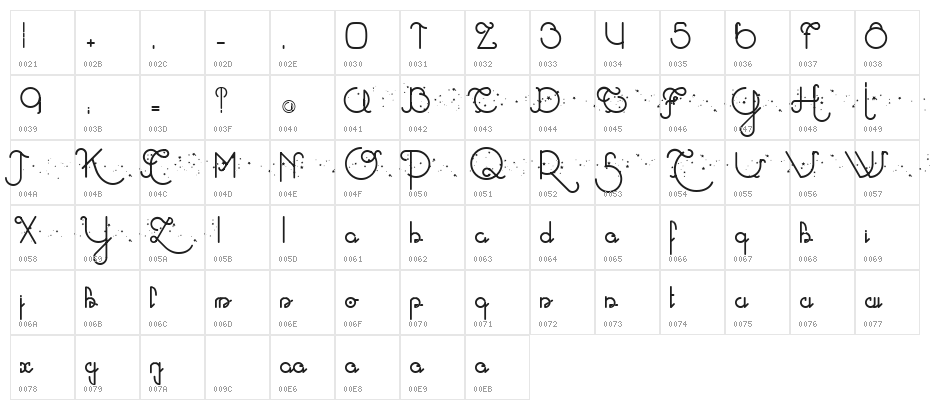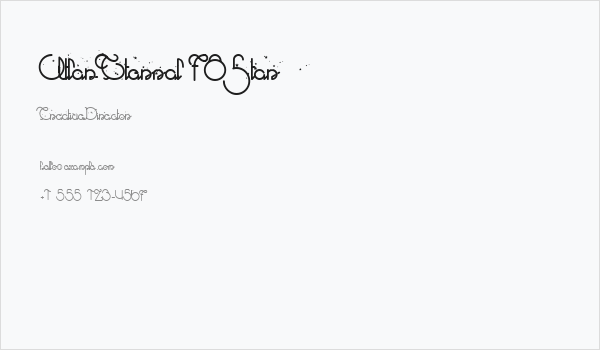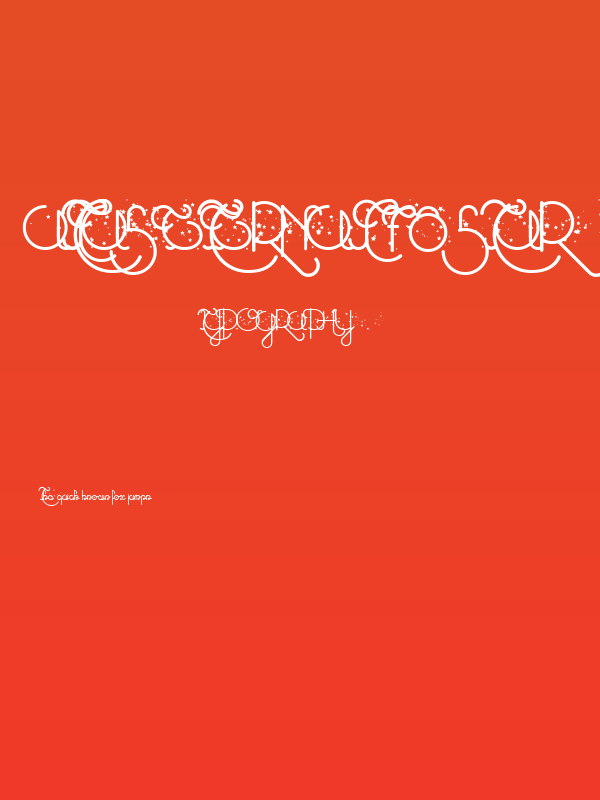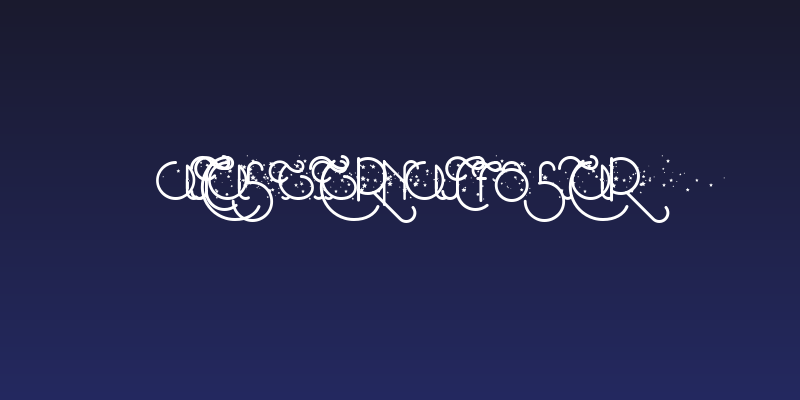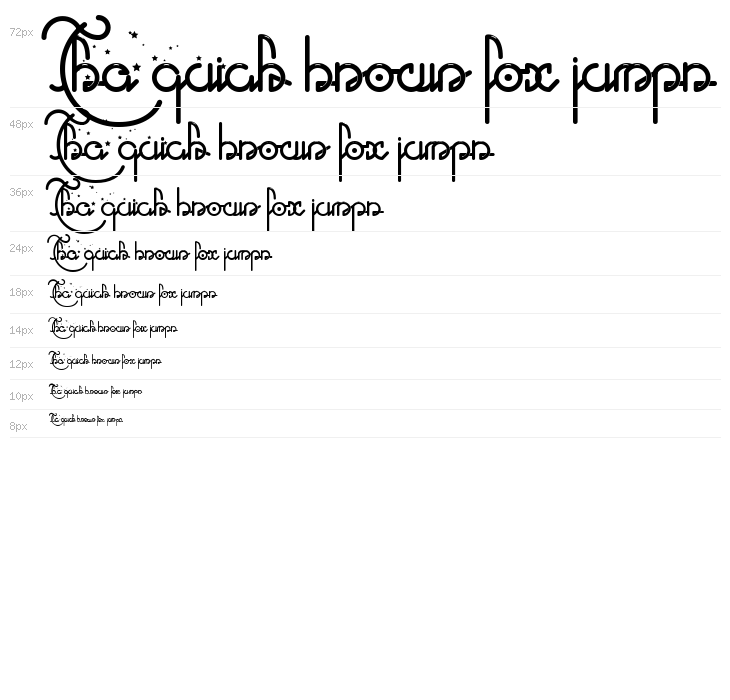
Atlas Eternal 78 Star Font
Atlas Eternal 78 Star Description
This font features an intricate and decorative design with a celestial theme, incorporating star-like elements and swirling lines. The uppercase letters are adorned with embellishments that give a sense of movement and whimsy, while the lowercase letters maintain a more straightforward yet still ornate style. The numbers and special characters continue the theme with unique flourishes. The overall appearance is both artistic and playful, making it suitable for creative and imaginative projects.
| Proposed Projects | Ideal for fantasy-themed designs, children's book covers, creative posters, and artistic invitations. |